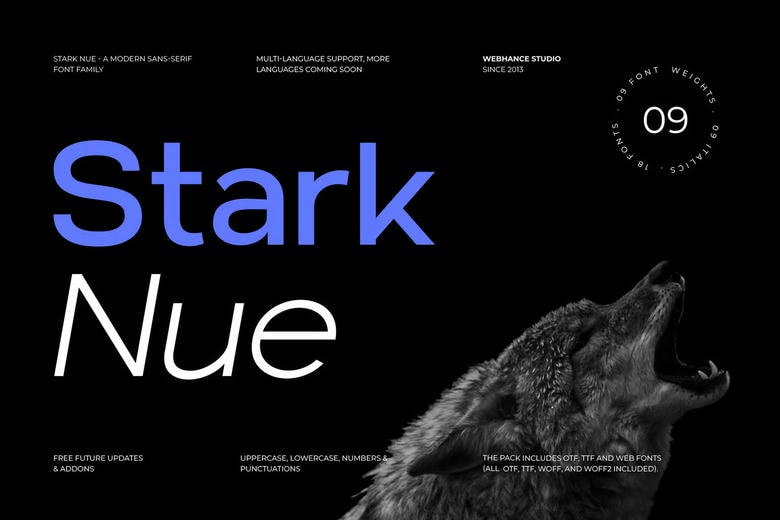
Stark Nue Font Family
Stark Nue Font Family is a contemporary sans serif font family that has been created with clarity, balance, and precision in mind. Built around a clean and minimalist style, Stark Nue is designed to operate in a broad scope of design needs.
The family consists of 9 carefully crafted weights with a range of Thin to Heavy along with their italic counterparts, for a total of 18 fonts. Each weight is drawn in such a way that it remains consistent in shape and spacing and thus easy to use in different layouts.
Stark Nue is accessible to branding, logo design, websites, posters, Instagram graphics, social media graphics, reel text, video infographics, Youtube thumbnails, and more. Every style is optimized for print and digital use to ensure clear readability and a consistent look on all platforms.